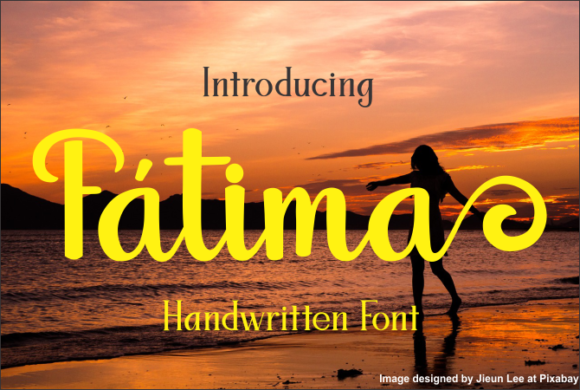
Fátima Font: Elevate Your Designs with Elegance and Sophistication
In the world of typography, a font can make or break the aesthetic of a design. For those seeking a script font that embodies elegance and class, look no further than Fátima Font. This lovely and delicate font is specifically crafted for designers and crafters who require a beautiful and refreshing look to elevate their creations.
The Essence of Fátima Font
Fátima Font is a script font that exudes sophistication and refinement. Its delicate strokes and curves create a sense of fluidity, making it perfect for designs that require a touch of elegance. Whether you’re working on a branding project, wedding invitation, or packaging design, Fátima Font is sure to impress.
Key Features of Fátima Font
- Elegant and Delicate: Fátima Font boasts a slender and refined appearance, making it ideal for designs that require a touch of sophistication.
- Script Style: This font features a classic script style with flowing connections between letters, creating a sense of movement and fluidity.
- Highly Versatile: Fátima Font can be used for a wide range of design projects, from branding and advertising to packaging and editorial design.
- Easy to Read: Despite its delicate nature, Fátima Font remains highly legible, making it perfect for body text and headings.
Design Applications for Fátima Font
Fátima Font is a versatile font that can be used in various design applications, including:
- Branding and Logo Design: Create a lasting impression with Fátima Font, perfect for luxury brands, boutiques, and high-end services.
- Wedding and Event Design: Add a touch of romance and elegance to your wedding invitations, programs, and other event materials.
- Packaging Design: Elevate your product packaging with Fátima Font, ideal for high-end products, cosmetics, and gourmet foods.
- : Use Fátima Font in your editorial designs, such as magazines, blogs, and newspapers, to add a touch of sophistication and refinement.
Why Choose Fátima Font?
In a world where typography plays a crucial role in design, Fátima Font stands out as a unique and elegant script font. Here are a few reasons why designers and crafters choose Fátima Font:
- Unique and Distinctive: Fátima Font offers a fresh and distinctive look that sets it apart from other script fonts.
- High-Quality Design: Crafted with precision and attention to detail, Fátima Font is a high-quality font that reflects professionalism and expertise.
In conclusion, Fátima Font is a lovely and delicate script font that exudes elegance and class. Its versatility, legibility, and unique design make it an excellent choice for designers and crafters seeking to elevate their designs. Whether you’re working on a branding project, wedding invitation, or packaging design, Fátima Font is sure to impress. Try Fátima Font today and experience the power of elegant typography in your designs.